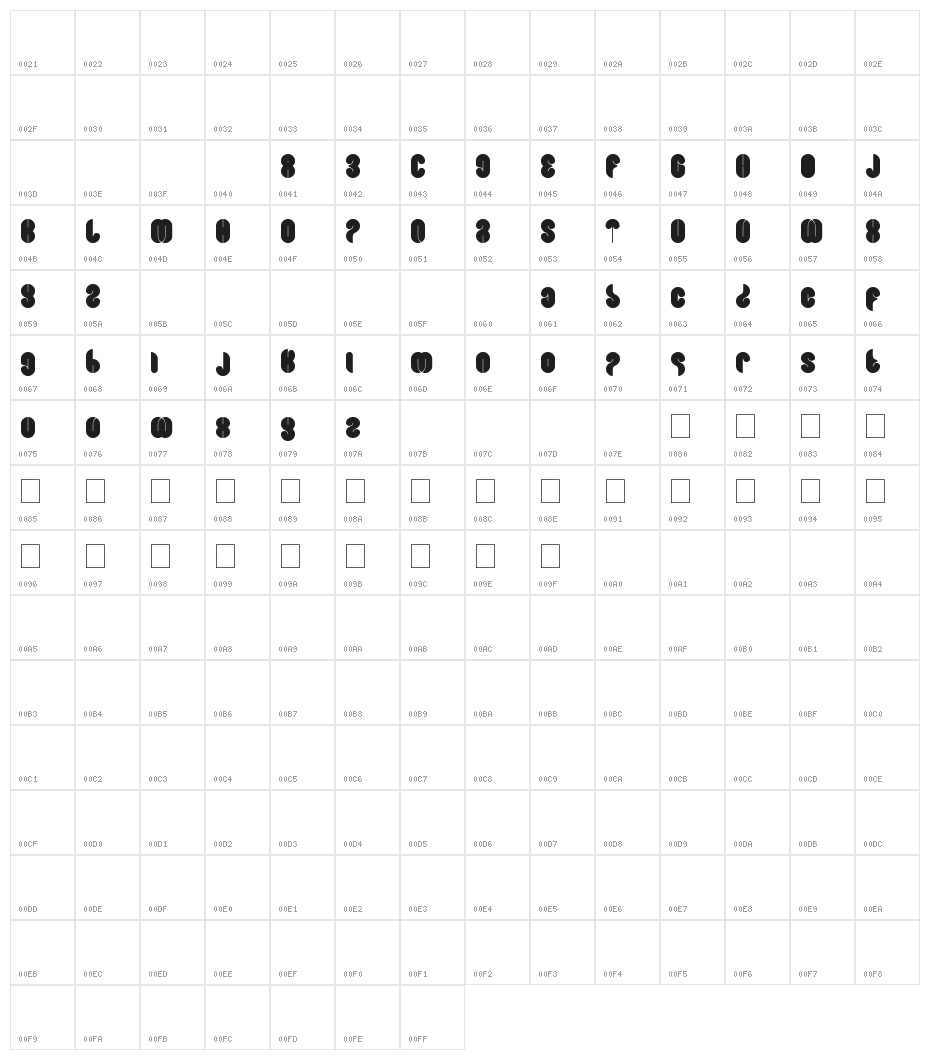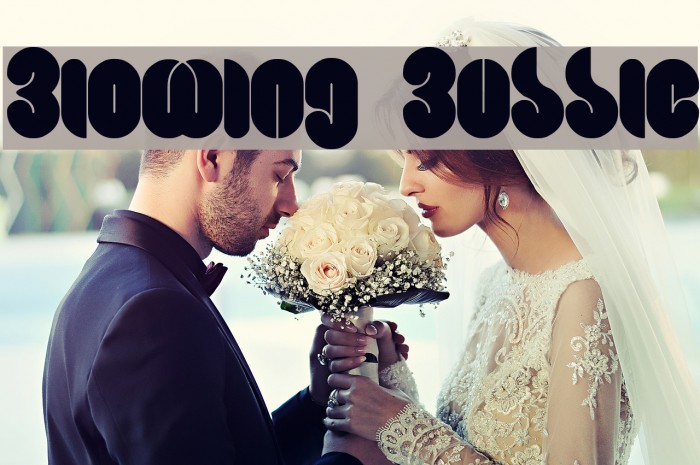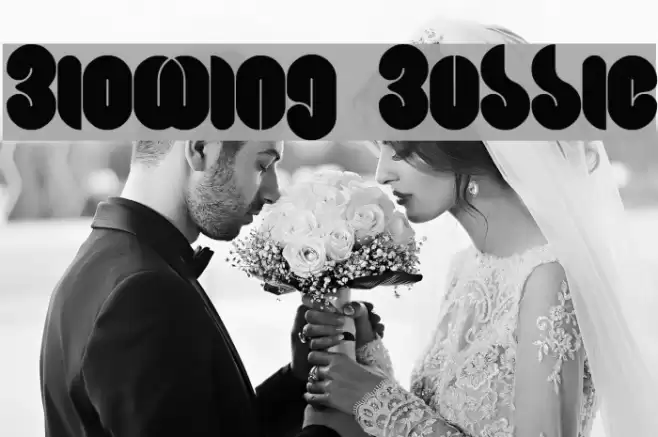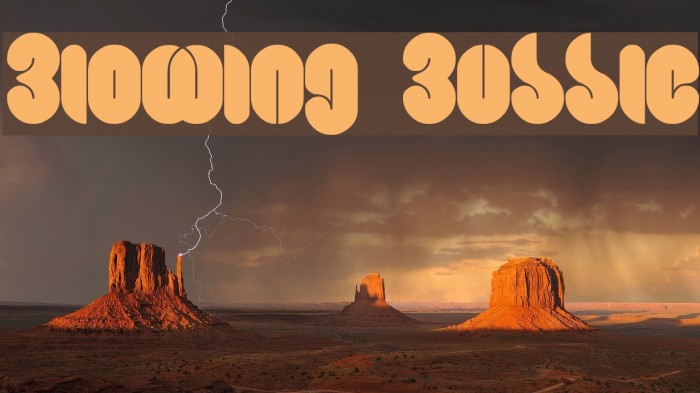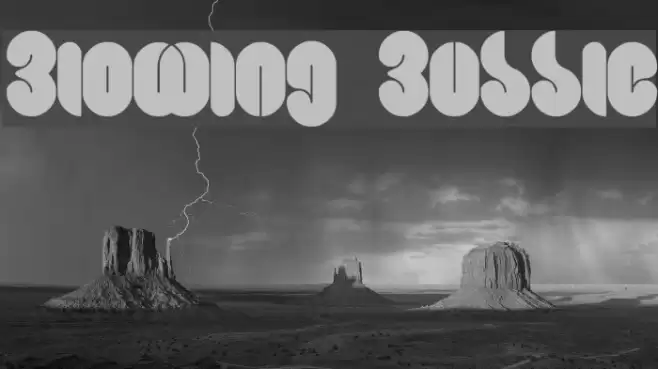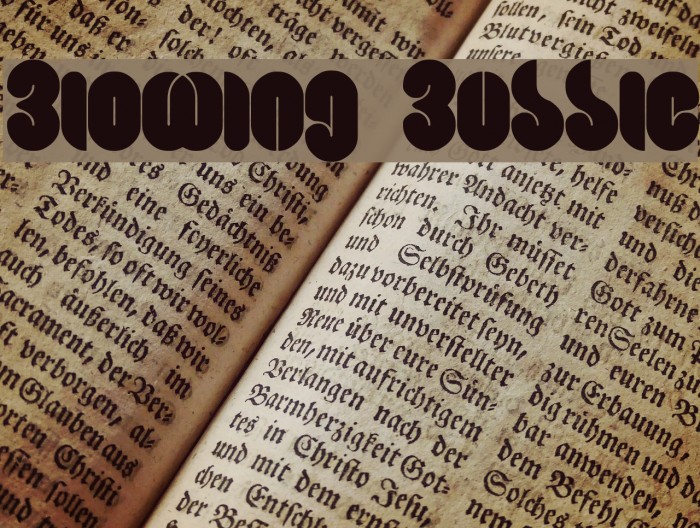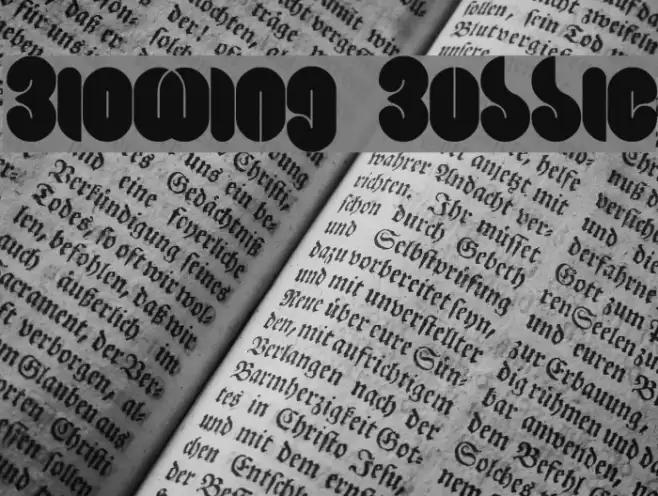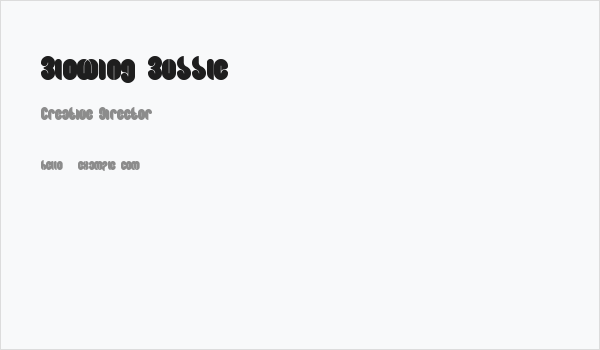
Blowing Bubble Font
Blowing Bubble Description
This font features a bold and playful design, characterized by its thick, rounded shapes that resemble bubbles. The letters are highly stylized with a unique split in the middle, creating a dynamic and eye-catching appearance. The overall aesthetic is modern and fun, making it suitable for creative and informal applications. The font's distinct style is achieved through its high contrast between the thick strokes and the narrow gaps, which adds a sense of rhythm and movement to the text. Its decorative nature makes it ideal for projects that require a strong visual impact.
| Proposed Projects | Ideal for posters, logos, children's books, and any design requiring a playful and bold aesthetic. |